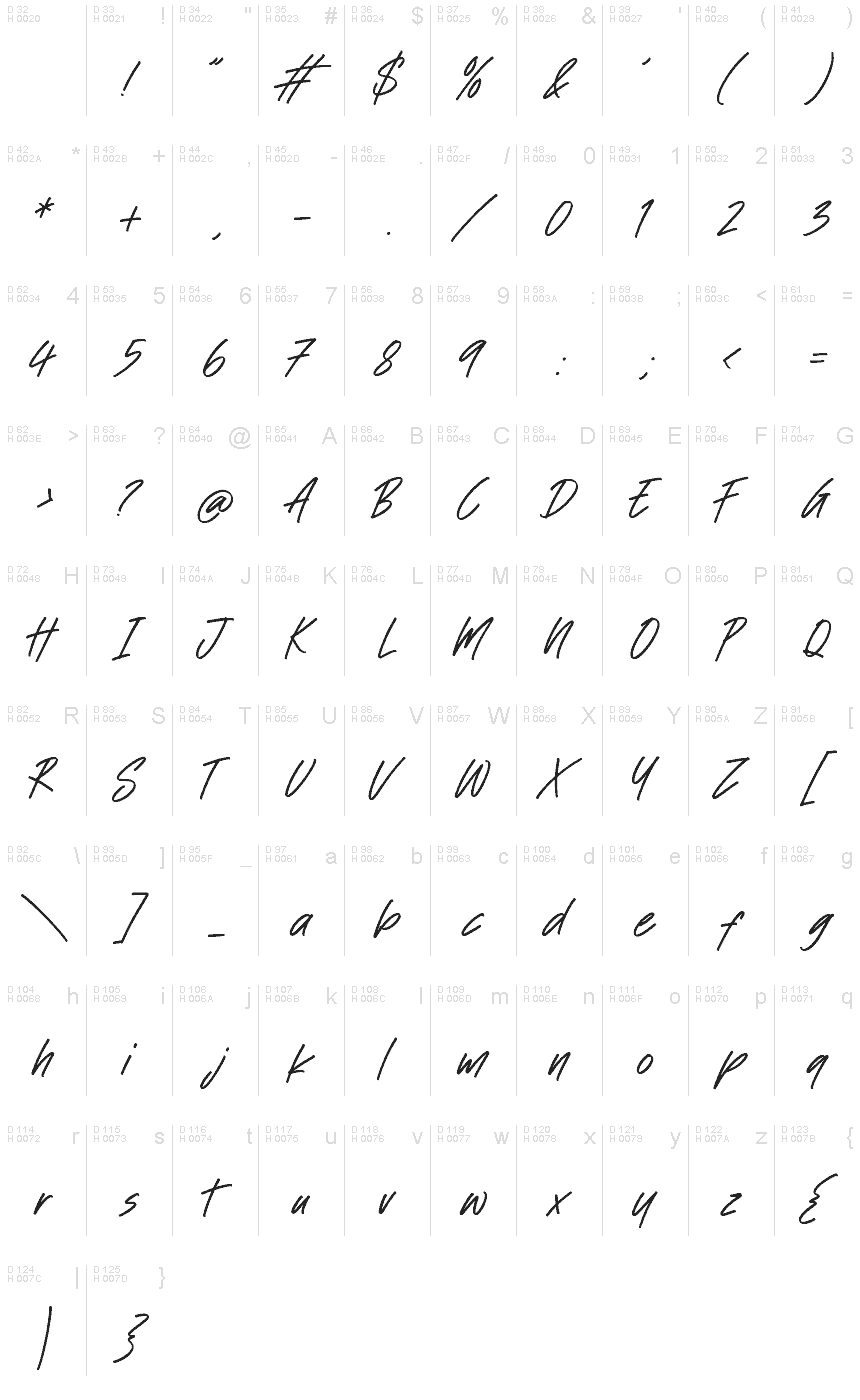
Hungry Dreamy
Hungry Dreamy font by Balpirick Studio is a light, condensed, handwritten script with casual elegance and a modern sensibility. An expressive flow and an artistic flair distinguish it, making the font remarkably appealing and exceptionally unique.
The uses of Hungry Dream range from seasonal decor prints to typography-based social media templates. Its other potential projects can be gifts packaging designs, catalogs and magazines headlines as well as luxury branding and pretty much everything else in between. The offered free handwritten font is suitable for both digital design fields & classic print use cases.